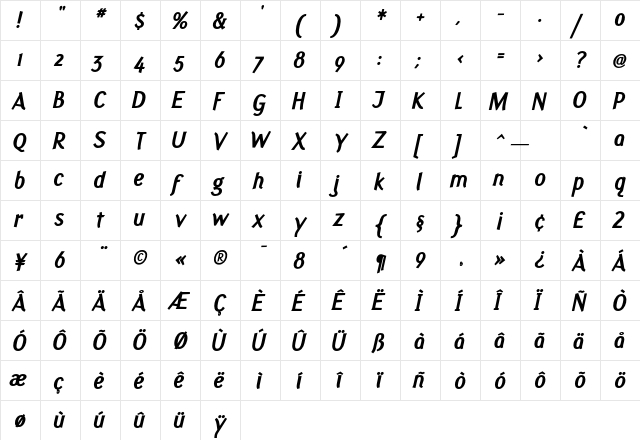
Fasciani-Senza ExtraBoldItalic
Design Context for Fasciani-Senza Typeface
Fasciani-Senza is a composed and adaptable typeface that performs quietly and consistently across a wide range of design contexts. Its italic angle brings a sense of urgency and motion to the letterforms. Its bold stroke weight gives it real presence on the page.
Pro Tip: Try Fasciani-Senza for annotation and caption copy alongside an upright companion — the contrast in angle creates a dynamic but ordered typographic system.